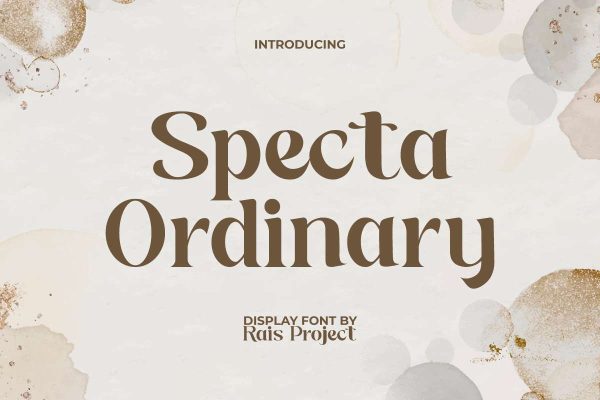
Specta Ordinary Font
Specta Ordinary Font is a charming display font inspired from classic style. This font has a beautiful touch and fits well in a variety of designs. Use this font right away and see how stunning it is in your designs!
Specta Ordinary Font is a charming display font inspired from classic serif style. It will be good for any designs, such as brand logo, business card, cover, custom design, feed design, invitation, label, magazine, menu, poster, product packaging, quote, signage, web, and more! You can see the demo font below, input any word you want so you can see what it looks like: